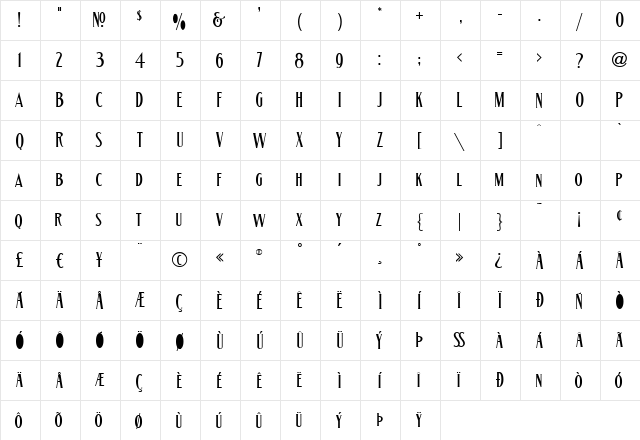
LHF Matthews Thin Regular
Design Context for LHF Matthews Thin Typeface
LHF Matthews Thin is a composed and adaptable typeface that performs quietly and consistently across a wide range of design contexts. Its slender proportions lend an understated elegance to any composition.